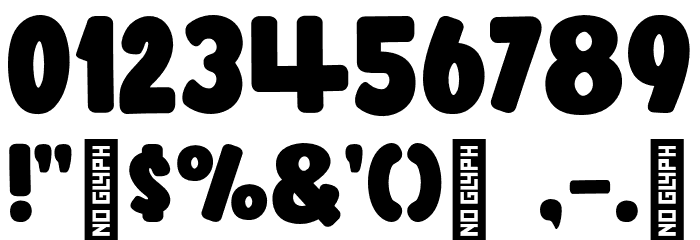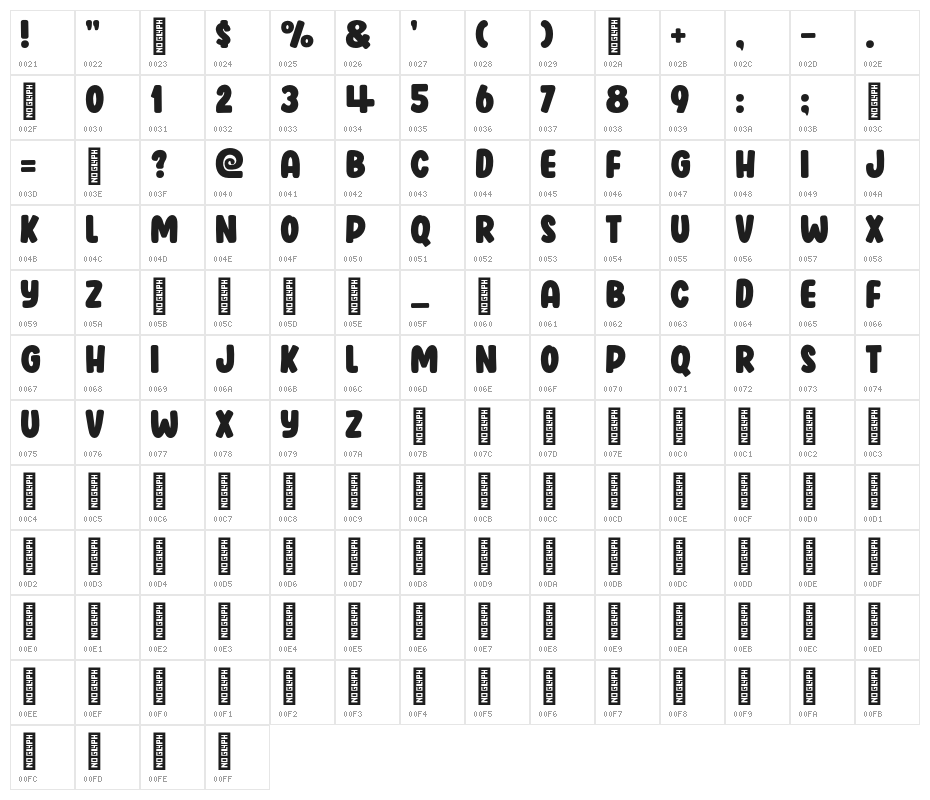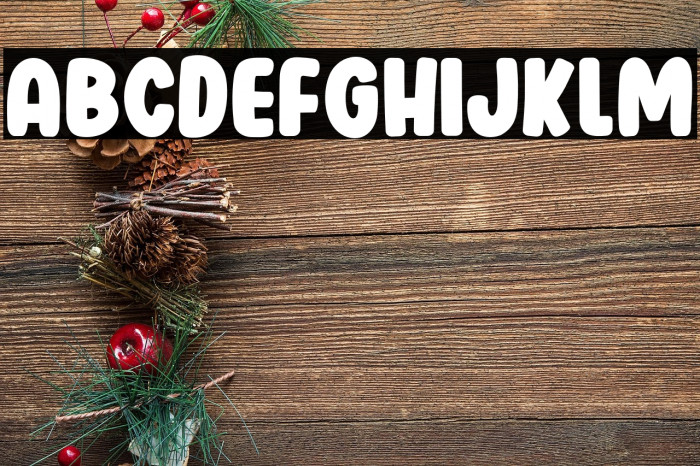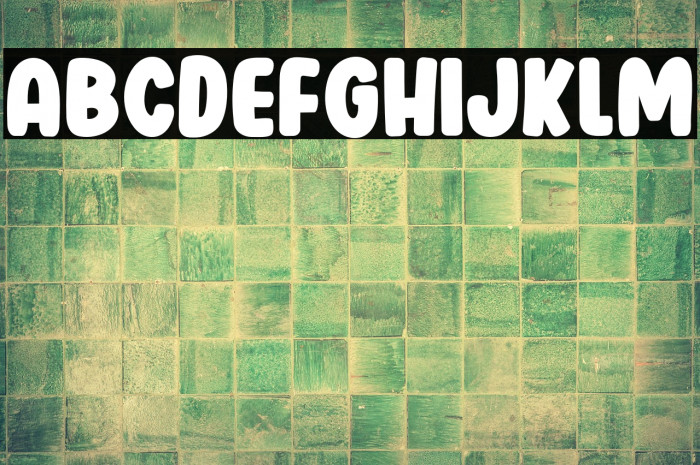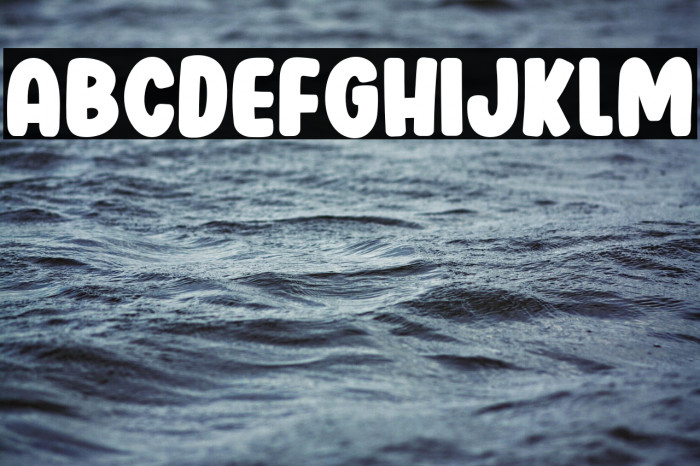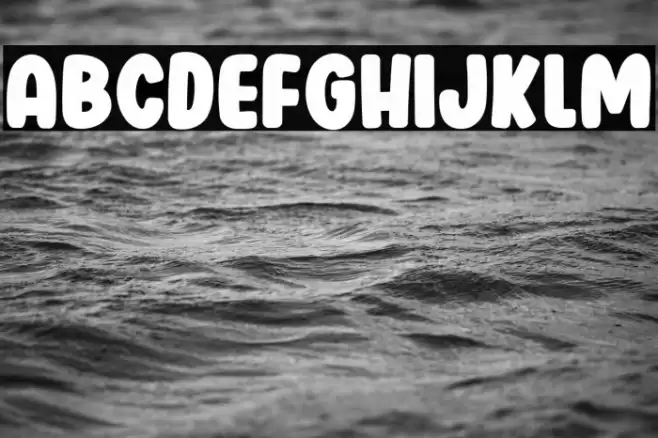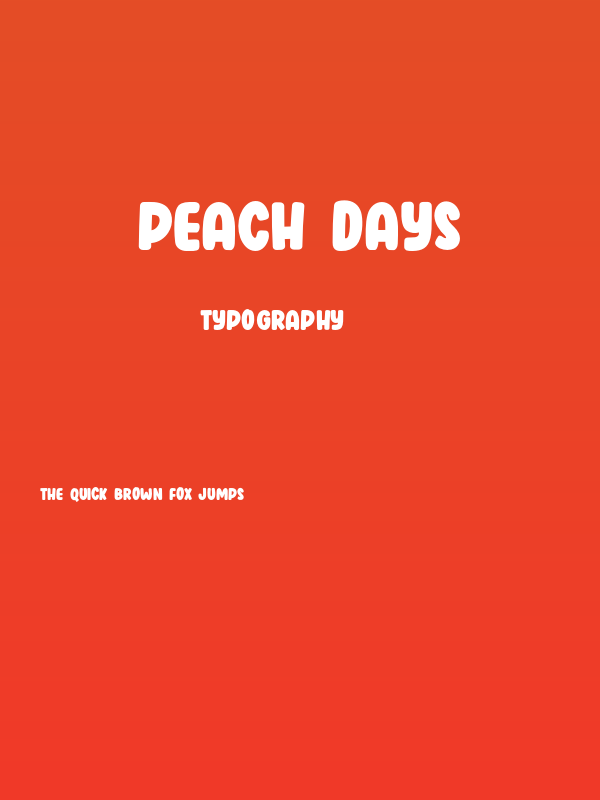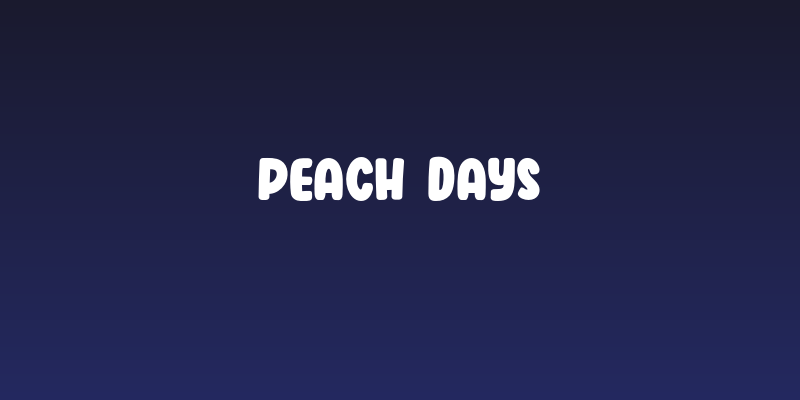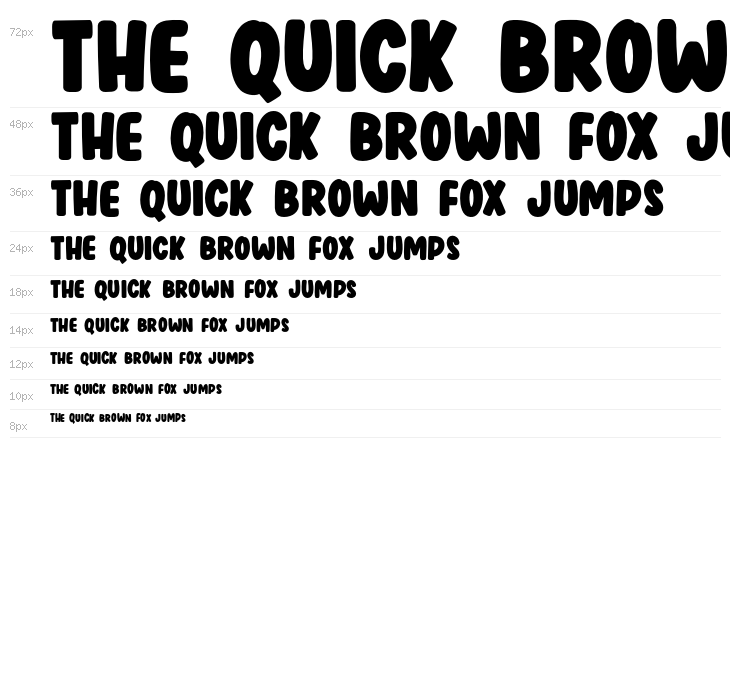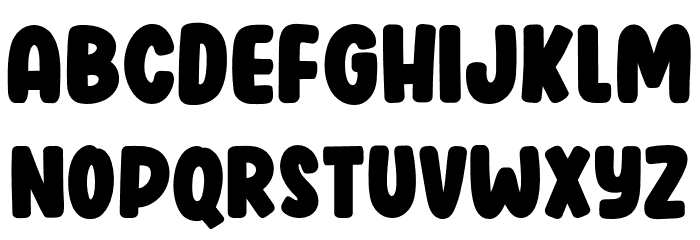
Peach Days Font
Peach Days Description
This font features bold, rounded characters with a playful and friendly appearance. The letters are thick and uniform, creating a strong visual impact. The rounded edges and consistent stroke width give it a soft, approachable feel, making it ideal for designs that aim to convey warmth and friendliness. The numbers and special characters maintain the same bold and rounded style, ensuring consistency across all elements. This font is particularly well-suited for projects that require a fun and engaging aesthetic.
| Proposed Projects | Ideal for children's books, playful branding, posters, and social media graphics. |